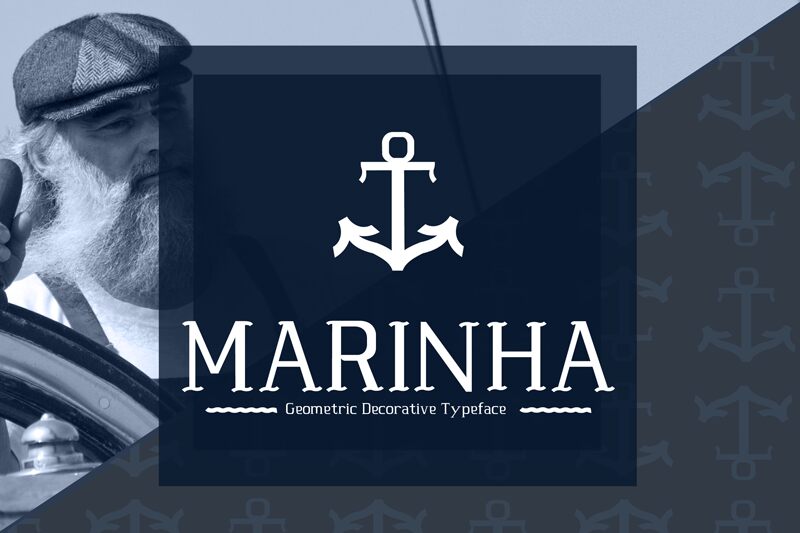
Marinha is a striking serif font that evokes the majestic spirit of the ocean. Inspired by the undulating waves and the nautical heritage of Portugal, this typeface exudes a sense of timeless elegance and nautical charm. With its geometric forms and decorative flourishes, Marinha is well-suited for titles, small text, and brand identities seeking to convey a coastal, seafaring aesthetic. The font's unique character and versatility make it a compelling choice for designers seeking to capture the essence of the great Portuguese ocean and its breathtaking beaches.
This typeface would thrive in a variety of design applications, from book covers to packaging, advertisements to signage. Marinha's distinctive style and maritime-inspired sensibility offer a captivating visual narrative that can elevate any project with a touch of aquatic allure.
MARINHA